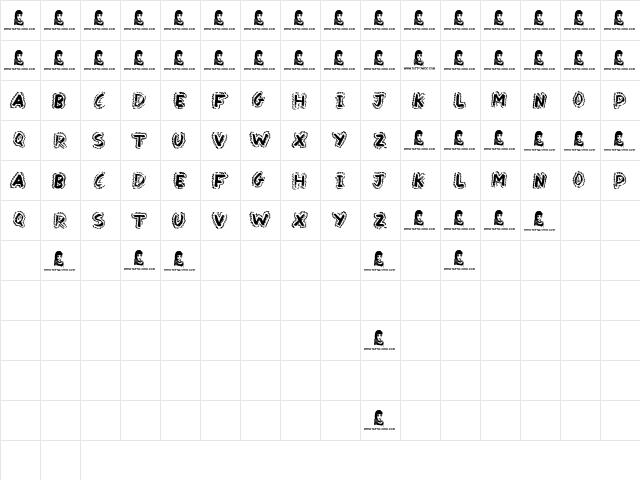
Yak Shamash Regular
Design Context for Yak Shamash Typeface
Yak Shamash is a composed and adaptable typeface that performs quietly and consistently across a wide range of design contexts.